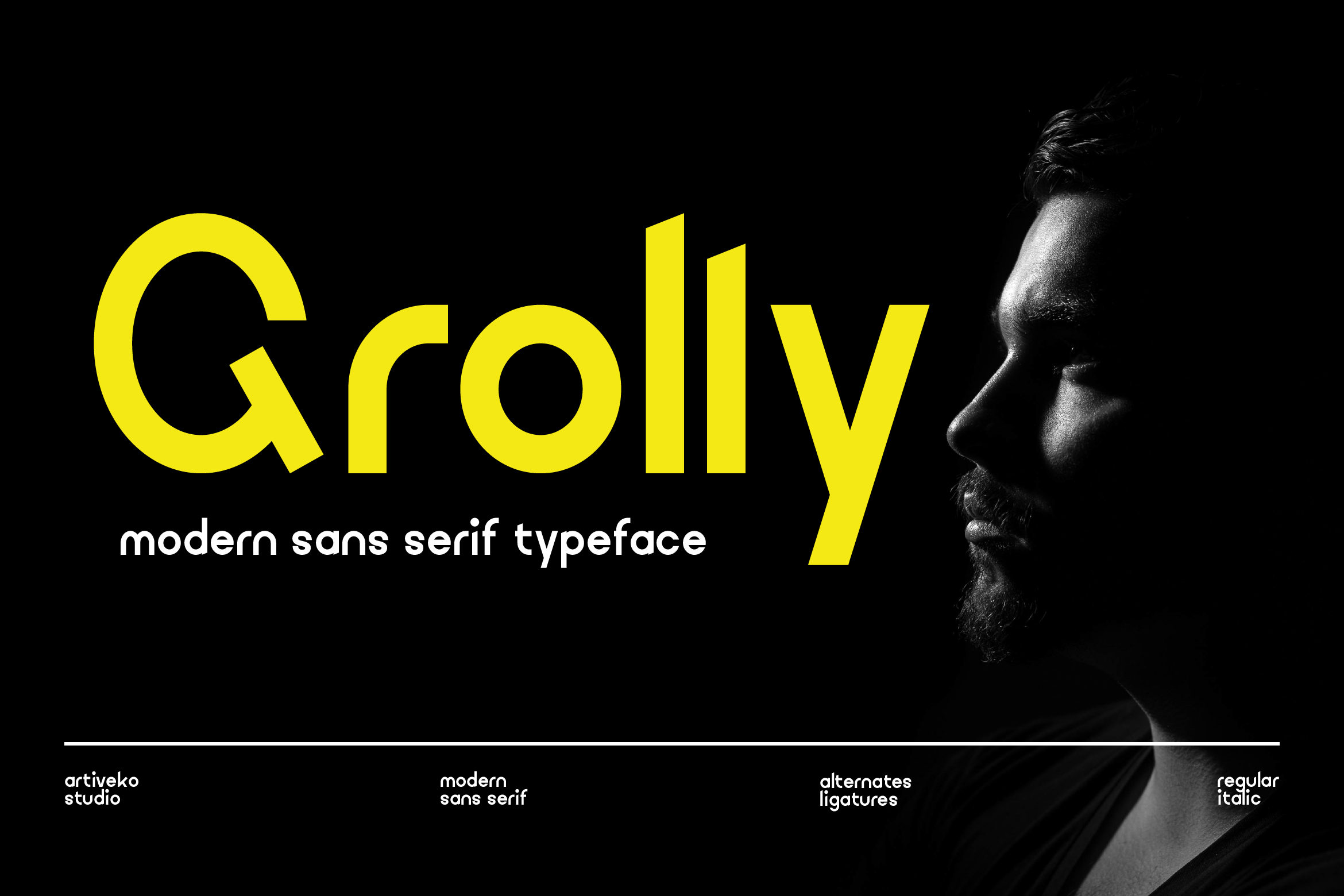
- Grolly Clean Sans Serif Font
Grolly is a clean and contemporary sans serif font designed for clarity and impact. Featuring geometric shapes, smooth curves, and perfectly balanced proportions, Grolly offers a modern aesthetic that suits a variety of creative projects, from branding and packaging to editorial design and digital interfaces.
Its versatile structure makes it an excellent choice for bold headlines and sleek body text, ensuring readability without losing its stylish character. Grolly includes uppercase and lowercase letters, numerals, punctuation, multilingual support, and a curated set of stylistic alternates to provide creative flexibility.
Whether you’re creating a dynamic logo, a professional presentation, or a striking marketing campaign, Grolly brings a sense of confidence and elegance to your design.
Elevate your typography with Grolly — the sans serif that defines modern minimalism with style.